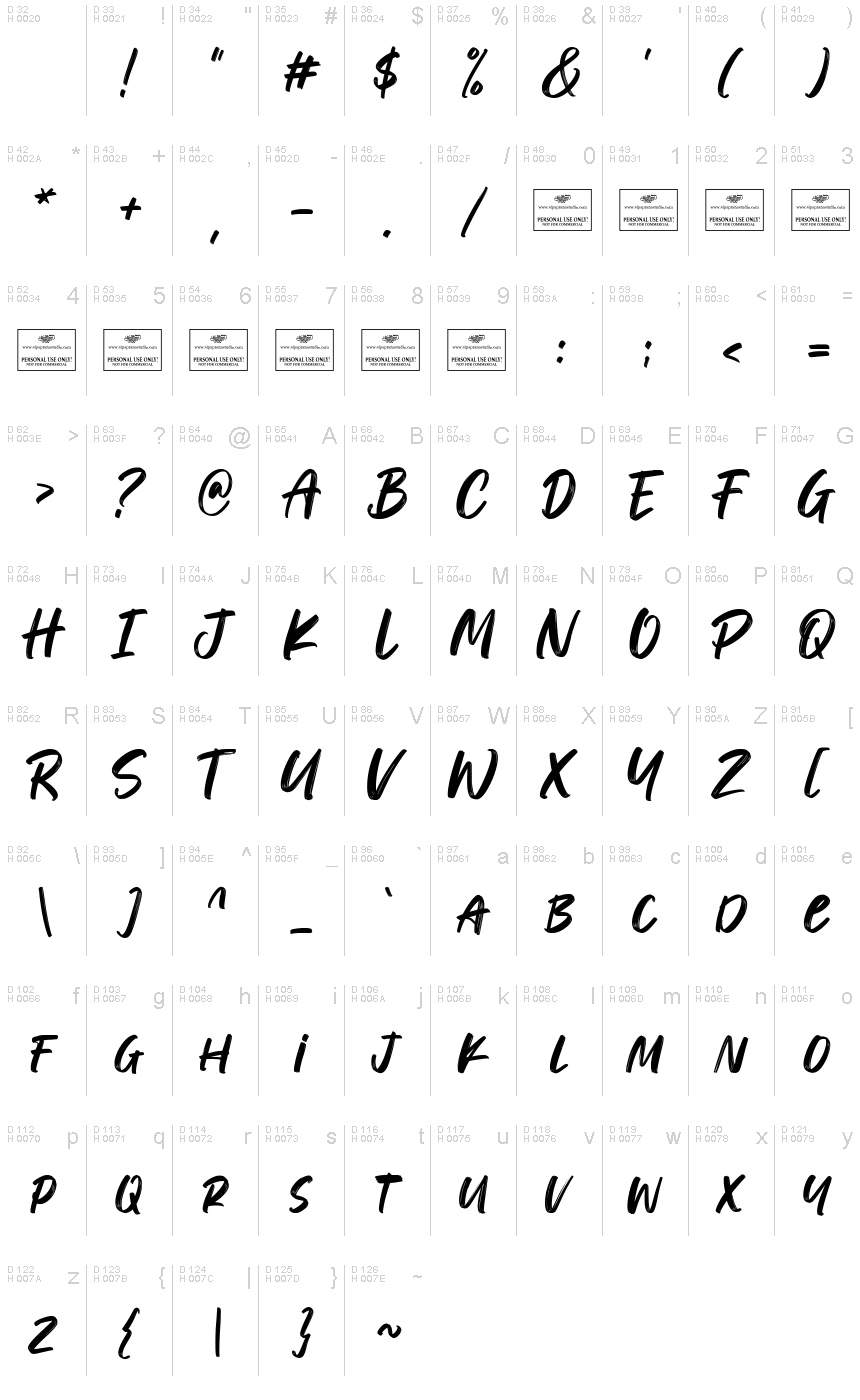
Bonfire
Bonfire is a striking brush font that exudes a bold, fiery energy. Crafted by the skilled designers at Alpaprana Studio, this font boasts an artful, handwritten aesthetic that immediately captivates the eye.
The fluid, dynamic strokes create a sense of movement and vitality, making Bonfire an excellent choice for headlines, logos, and other design elements where a powerful, attention-grabbing presence is desired. Its versatility extends to a wide range of applications, from editorial layouts to packaging and branding, lending a distinctive character that elevates any project.